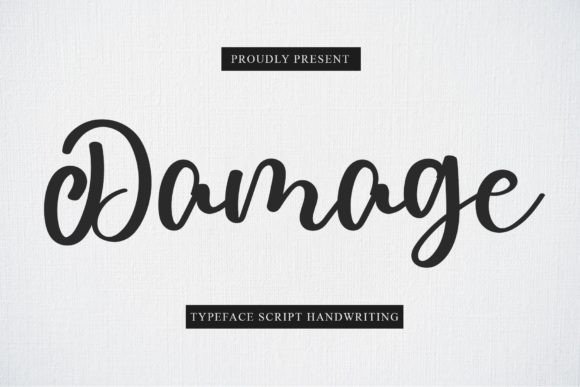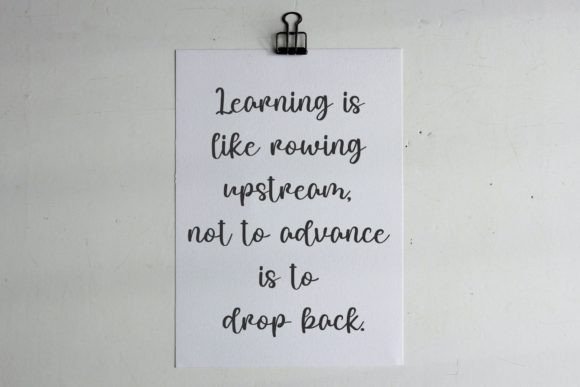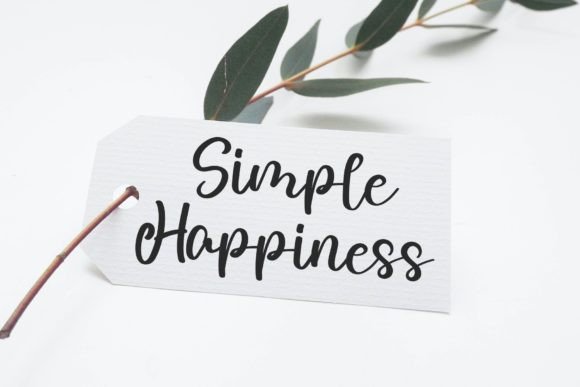
About Damage Font
“Damage” is a charming handwritten font characterized by its sweet, round, and flexible design. Its warm, romantic, and jolly aura adds a delightful touch to any creative project. Whether you’re working on invitations, greeting cards, social media posts, or other designs, “Damage” has the ability to transform your ideas into captivating works of art.
One of the notable features of “Damage” is its PUA (Private Use Area) encoding, allowing easy access to a wide variety of glyphs and swashes. This feature enhances your creative freedom, enabling you to customize your designs with unique and artistic elements. With its extensive set of characters, this font offers versatility, making it suitable for a range of design applications.
Embrace the sweet and playful nature of “Damage” to add a touch of whimsy and joy to your projects. Its rounded and friendly appearance makes it particularly well-suited for designs that require a warm and inviting feel. Utilize the font’s PUA encoding to explore its diverse range of glyphs and swashes, allowing you to create customized and visually appealing typographic compositions.
With “Damage,” your designs will exude a sense of charm and creativity, captivating your audience and leaving a lasting impression. Let this delightful handwritten font bring a touch of romance and cheerfulness to your creative endeavors, making each project a true work of art.